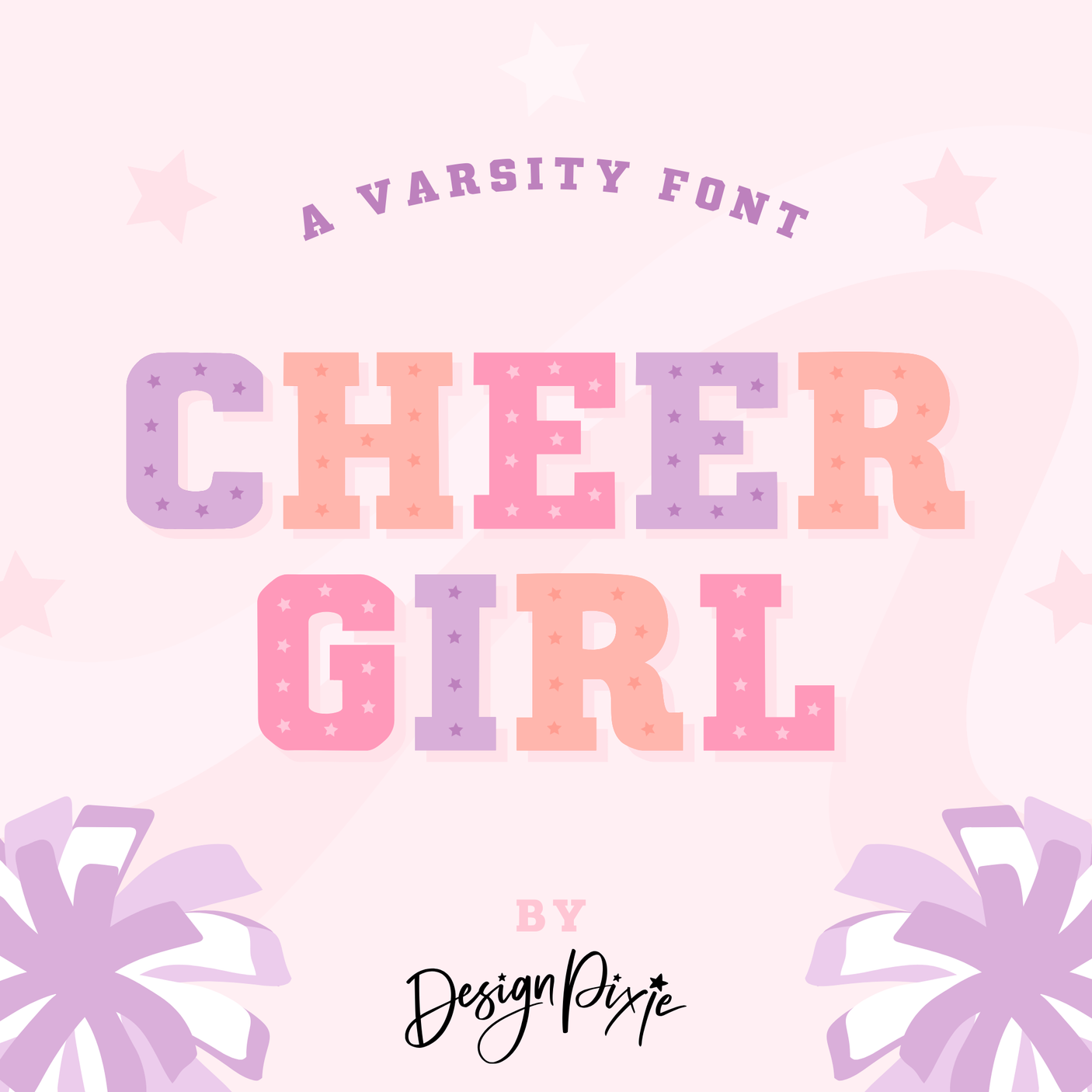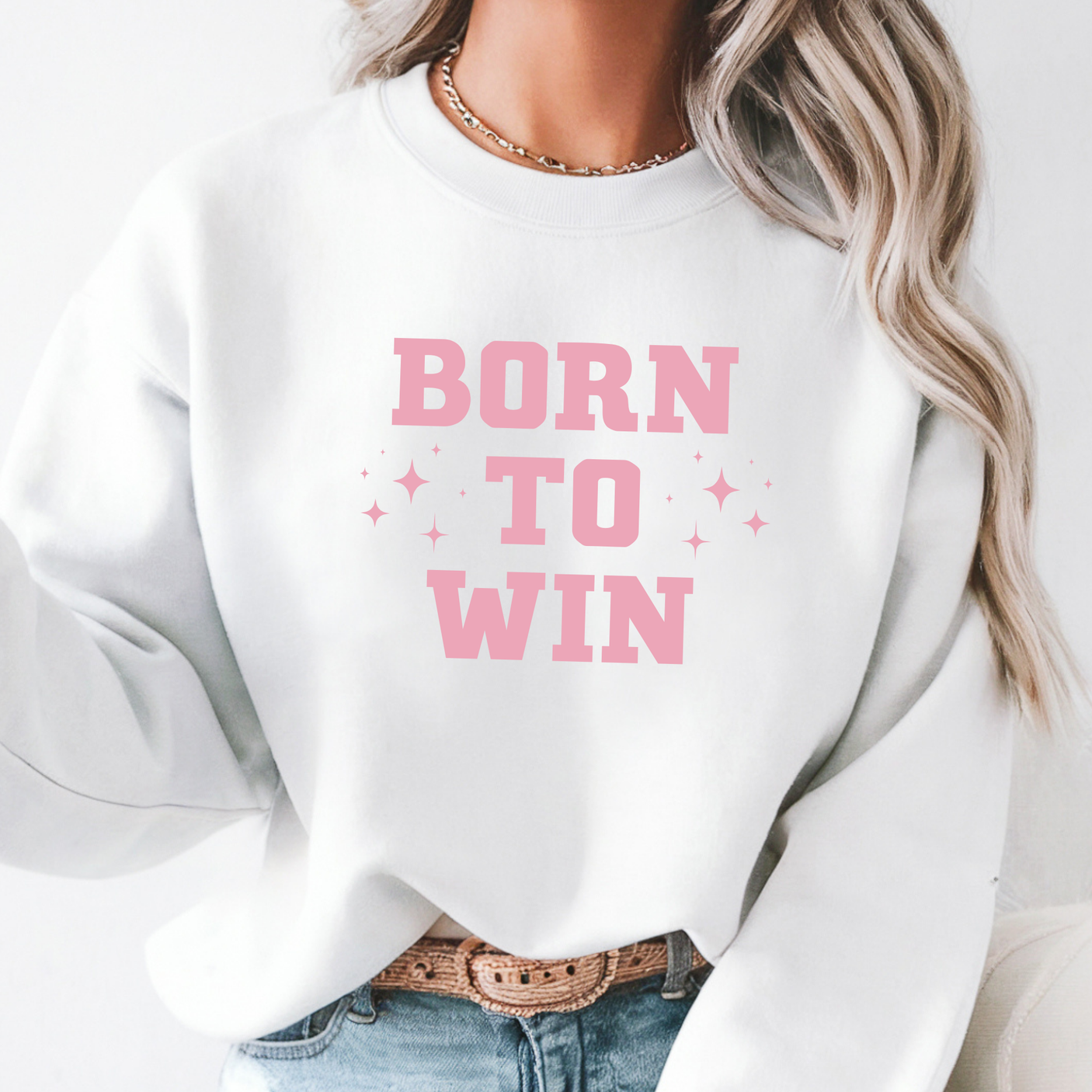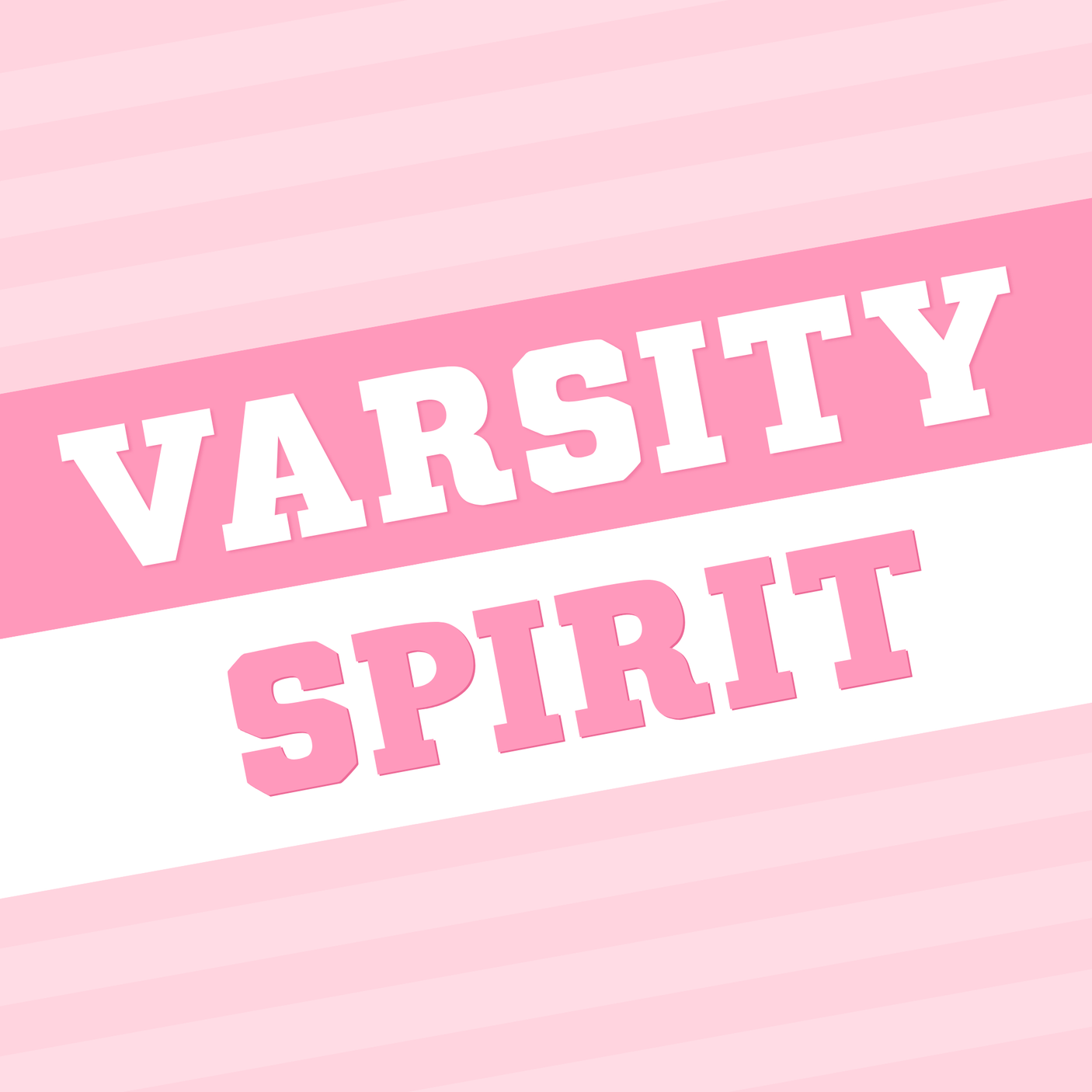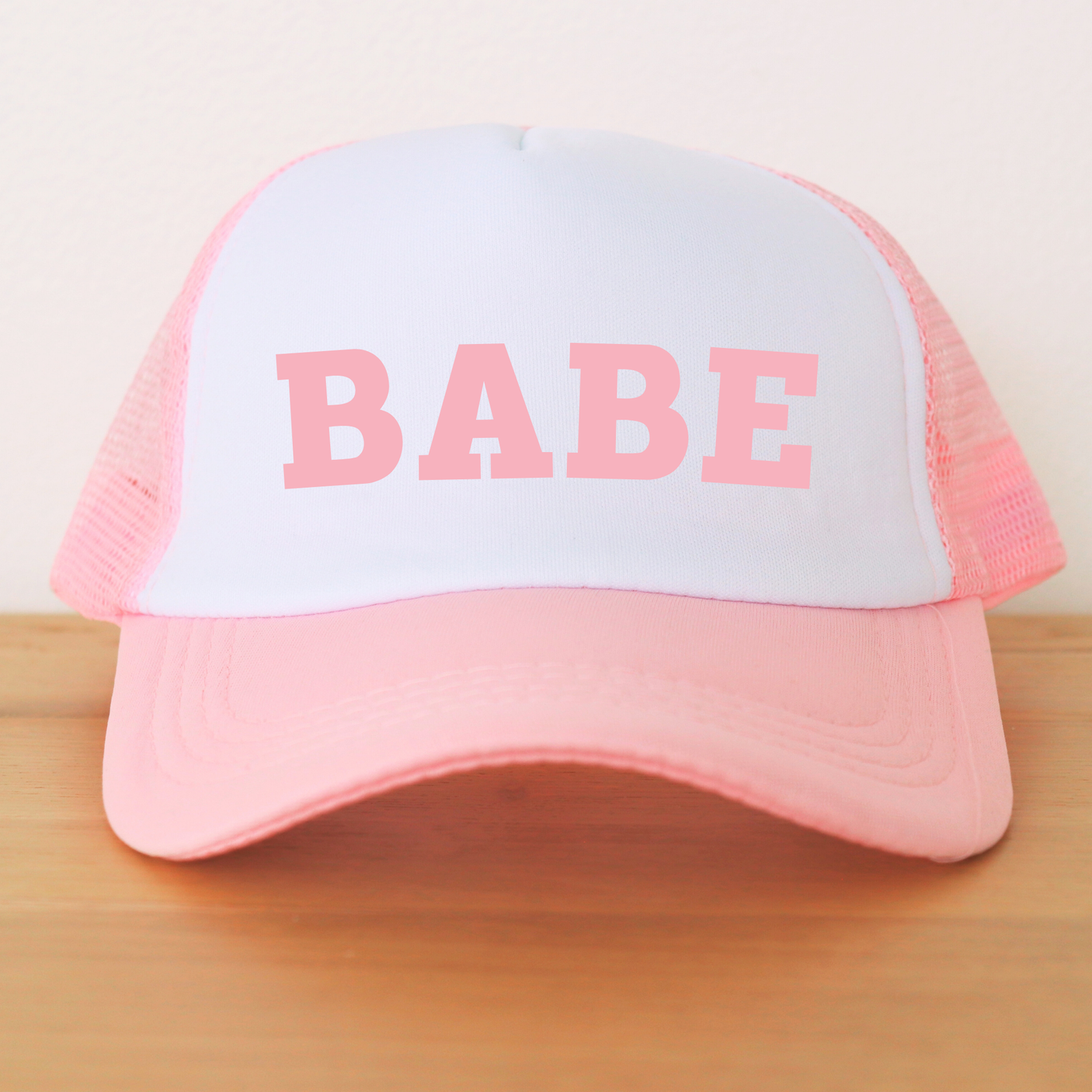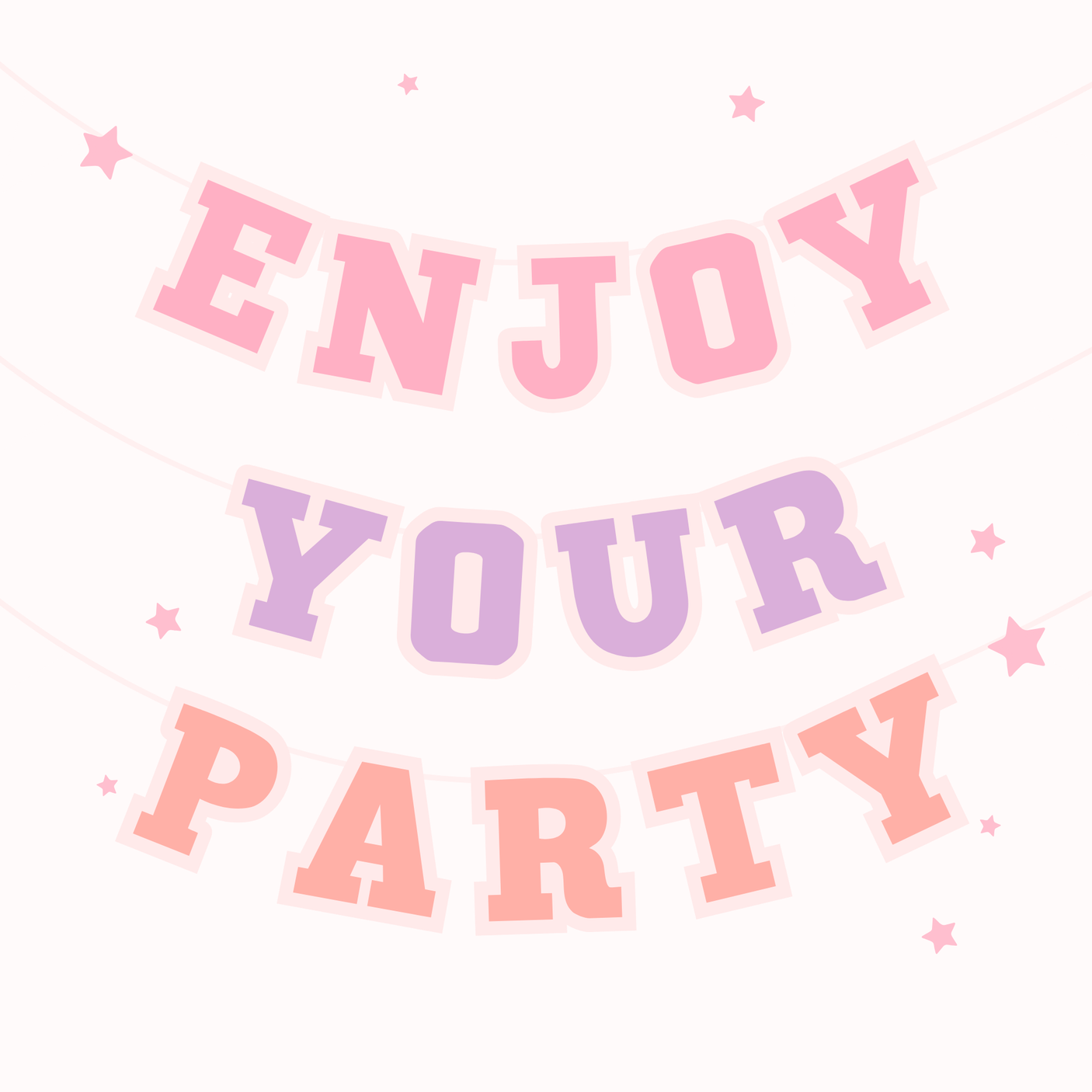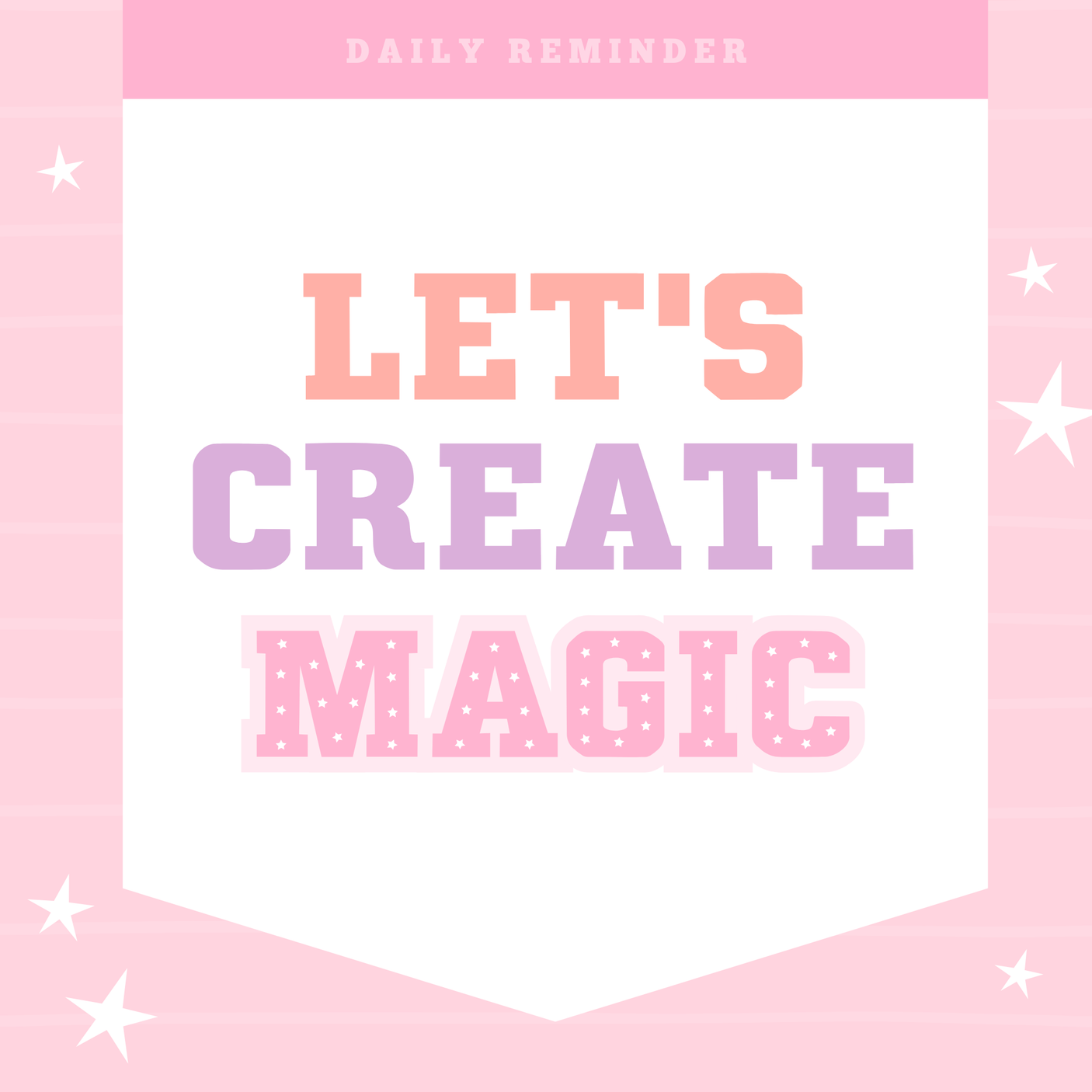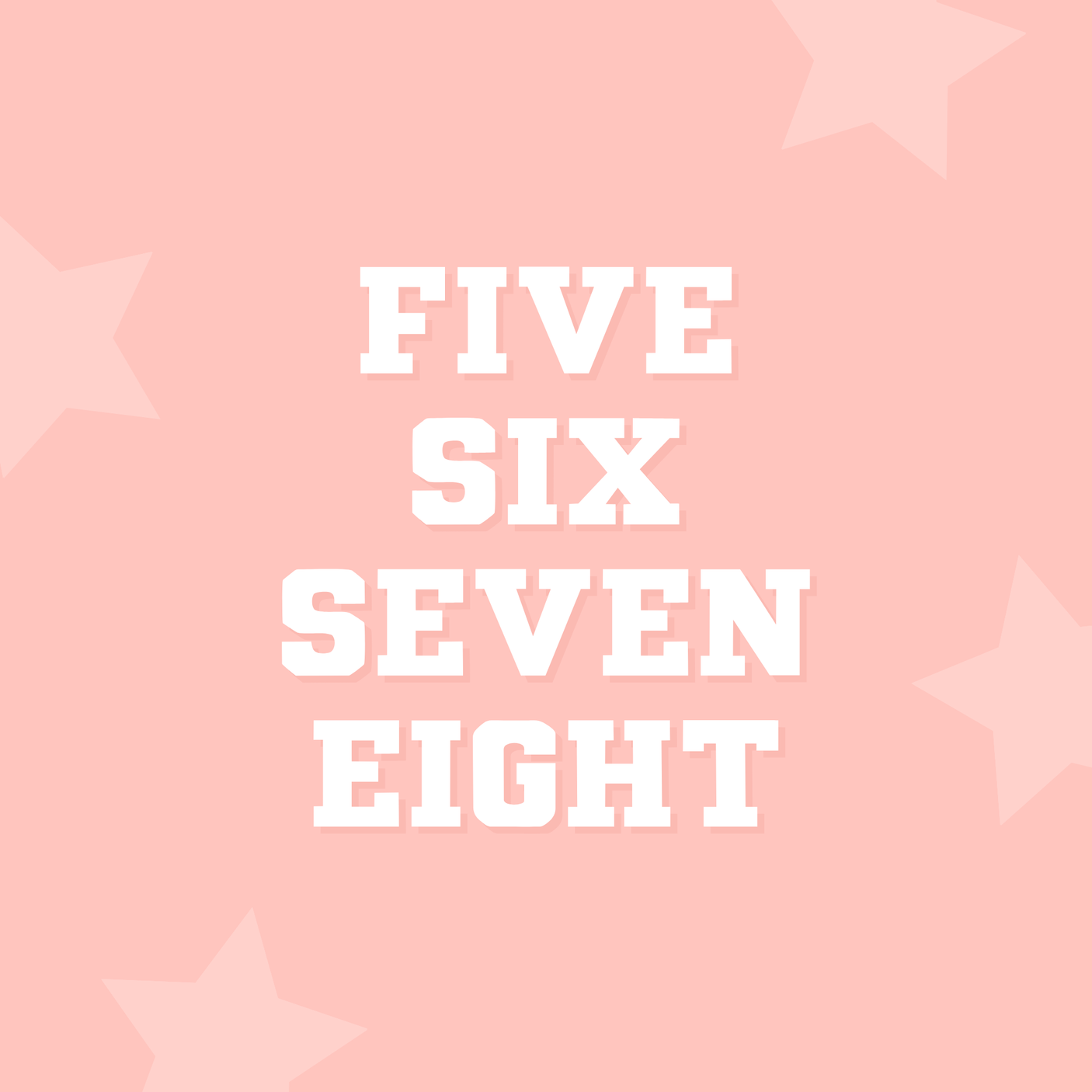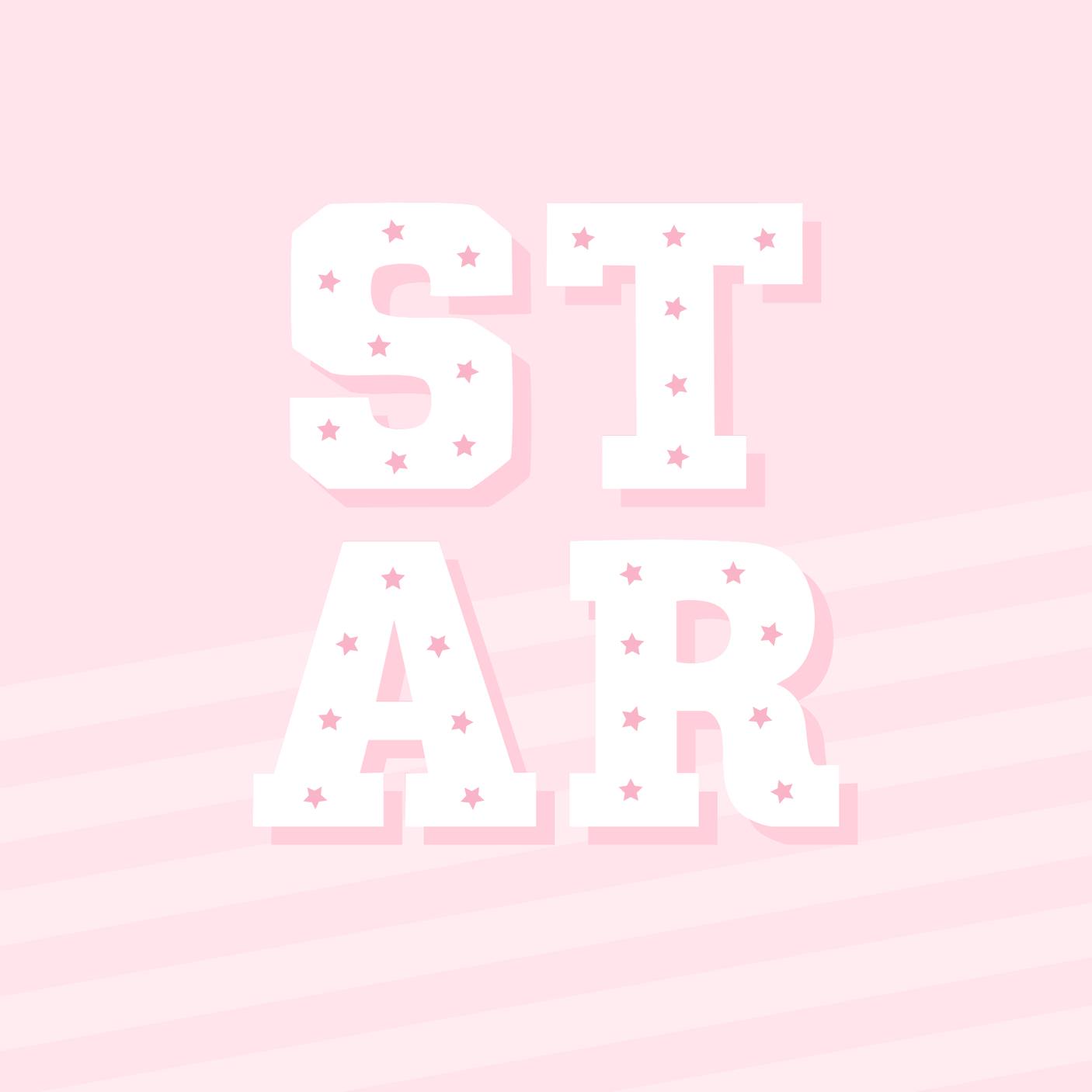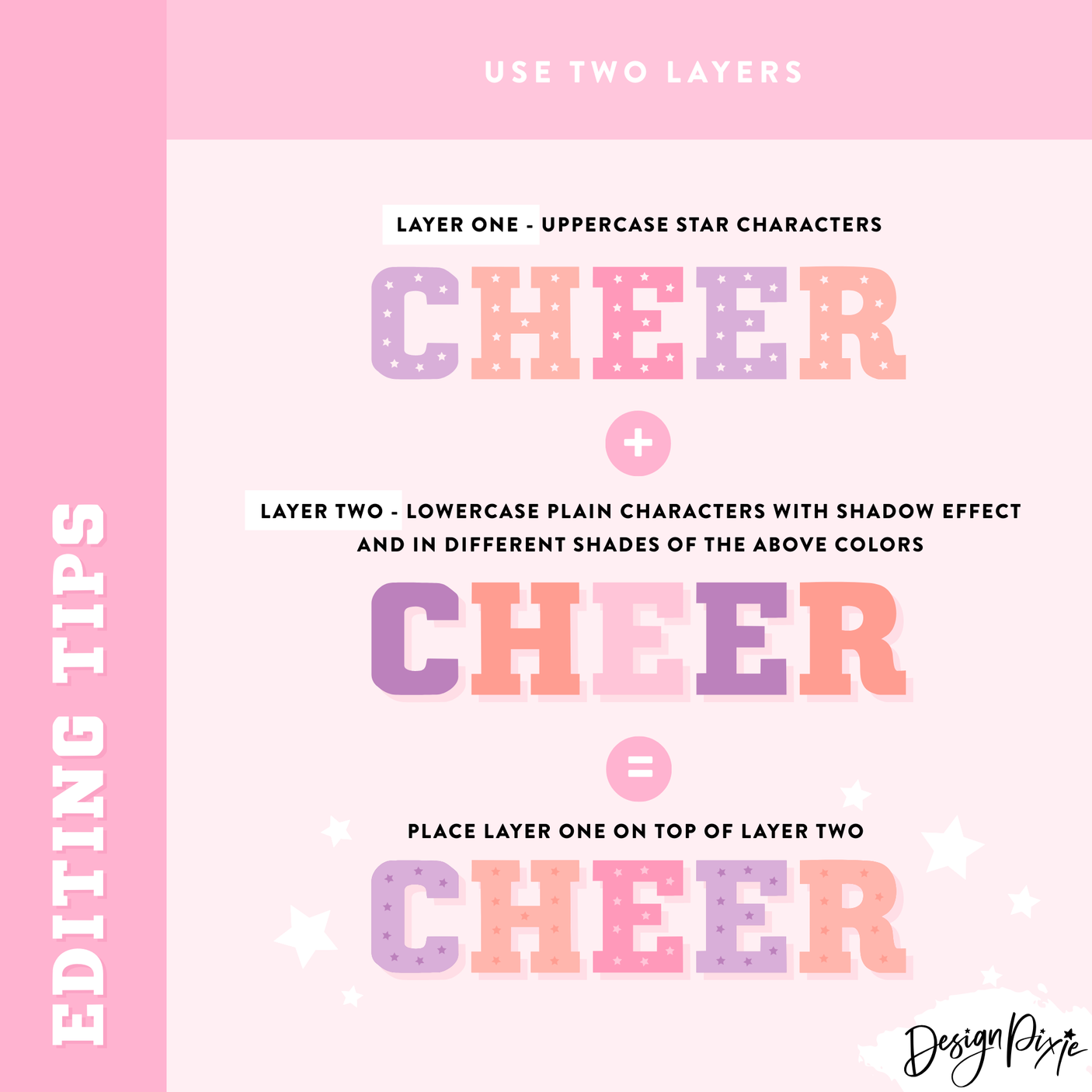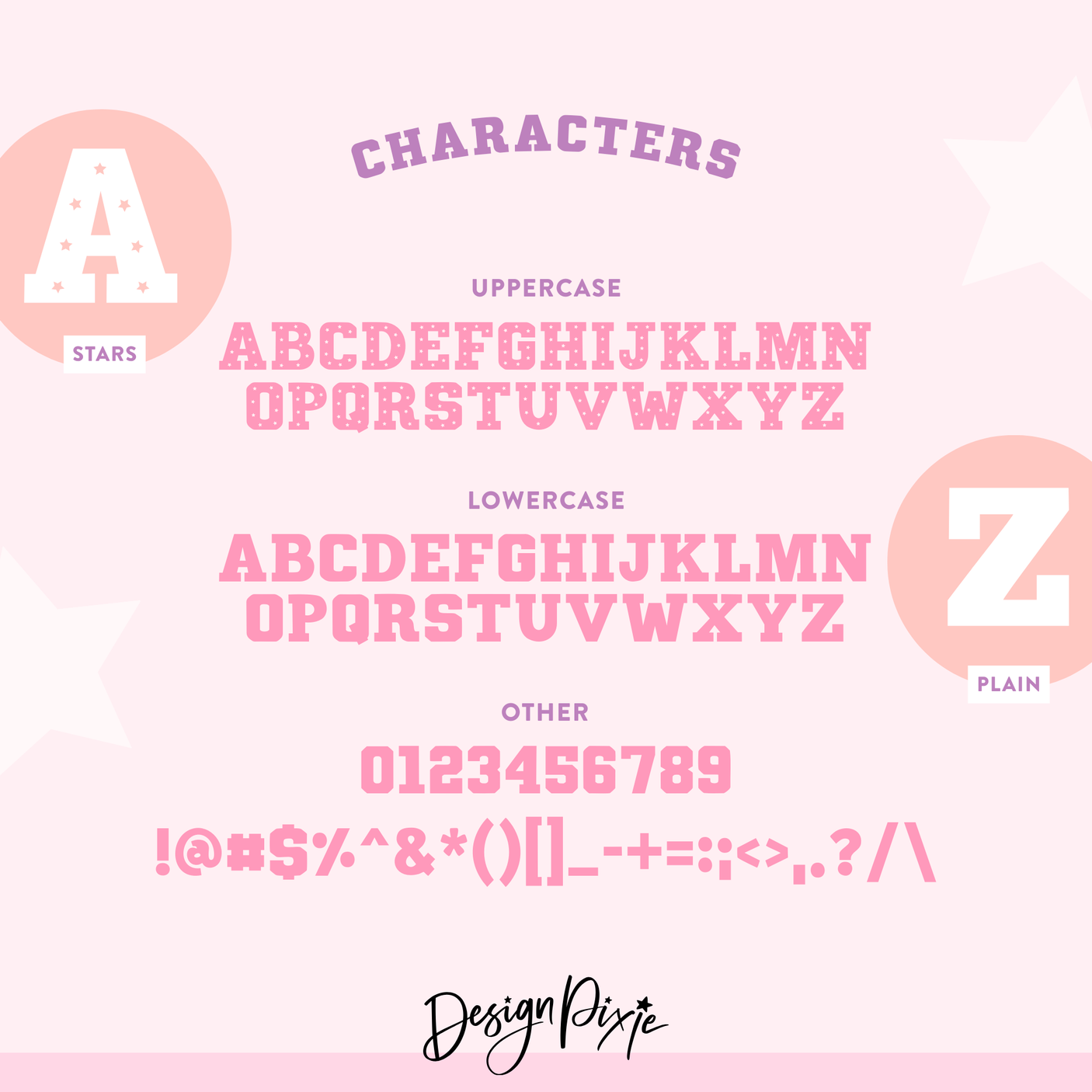
Cheer Girl Font
Bring bold, sporty vibes to your designs with Cheer Girl varsity font, perfect for every project that needs a winning look! This all-uppercase block display font comes in two styles: classic varsity block letters and a fun star-filled version for extra flair. Whether you’re creating team merch, spirit wear, or standout social posts, Cheer Girl is your new go-to.
This versatile varsity font is ideal for:
- Cheerleading designs & spirit banners
- DIY Cricut projects & printables
- Chenille patch-inspired graphics
- Custom Canva creations
Use this varsity font alphabet for standout headlines, logos, apparel, and anything that needs that bold, collegiate feel. Compatible with Canva, Cricut, Silhouette, and all major design software.